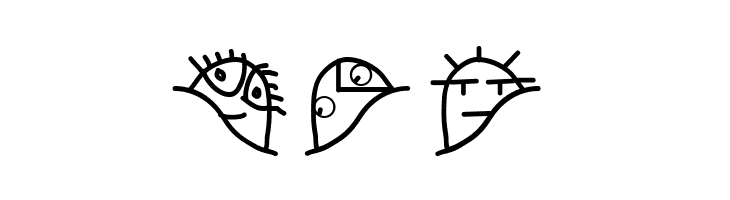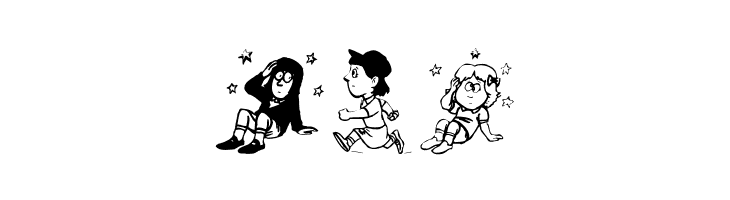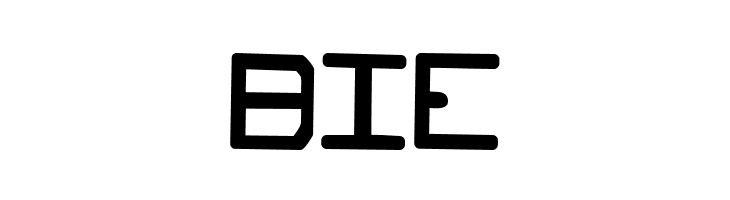
• GFSNeohellenic-Regular
A modern sans-serif typeface with geometric influences and balanced proportions.
• GiambattistaDueMille
A classic serif font with high contrast and elegant, refined details.
• GiambattistaDueMille-Oblique
An elegant oblique serif font with high contrast and sharp serifs.
• GiambattistaVsPetit
A classic serif font with high contrast and elegant, sophisticated design.
• Gidugu
A bold, modern font with strong strokes and a slight slant for dynamic appeal.
• Gipfelkoepfe
A whimsical collection of bird illustrations representing different characters.
• GirlsGirls
• GiveYouGlory
A playful, casual handwritten font with fluid strokes and rounded edges.
• Glockenspiel
• GloriaVectoria
Expressive, illustrative icon-based font with surreal and abstract motifs.